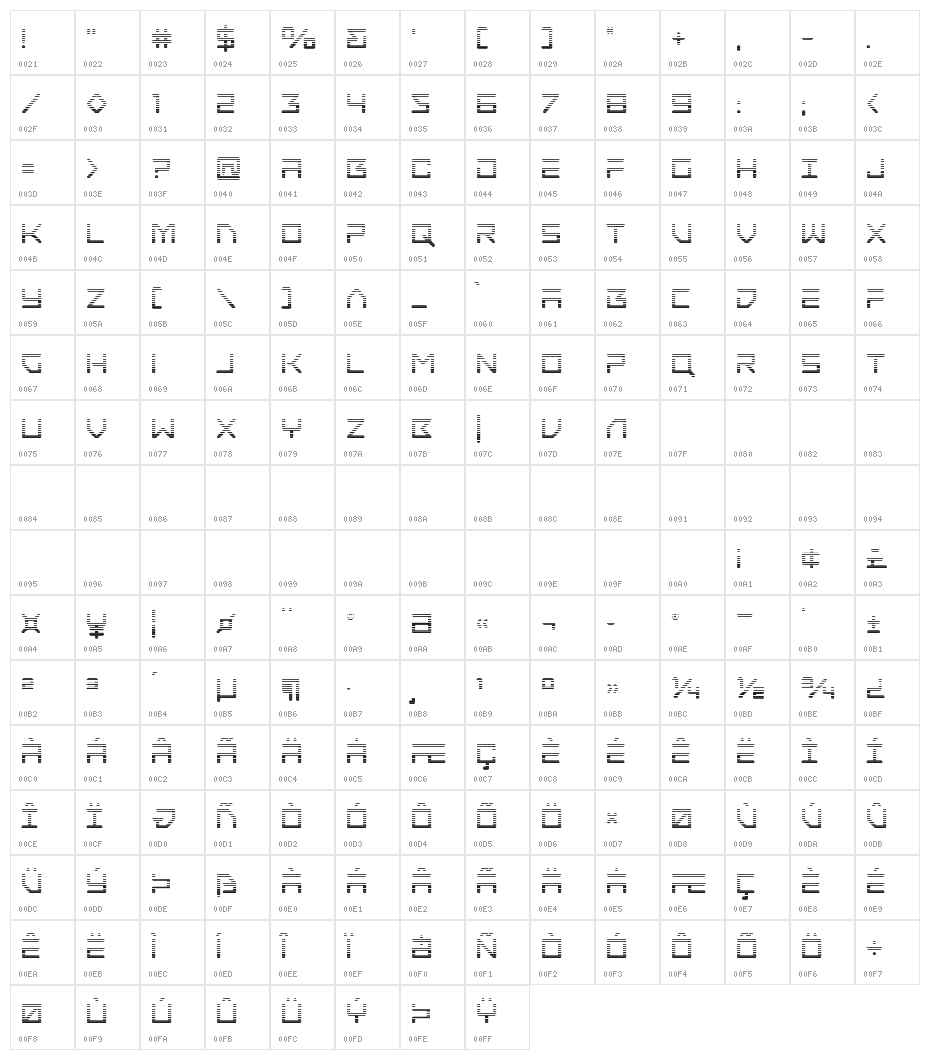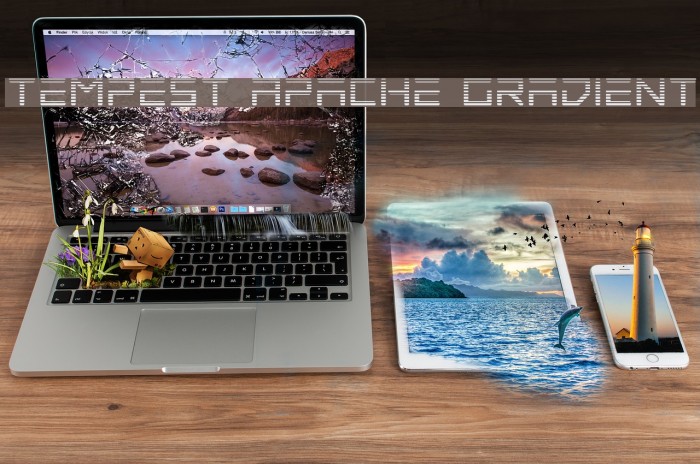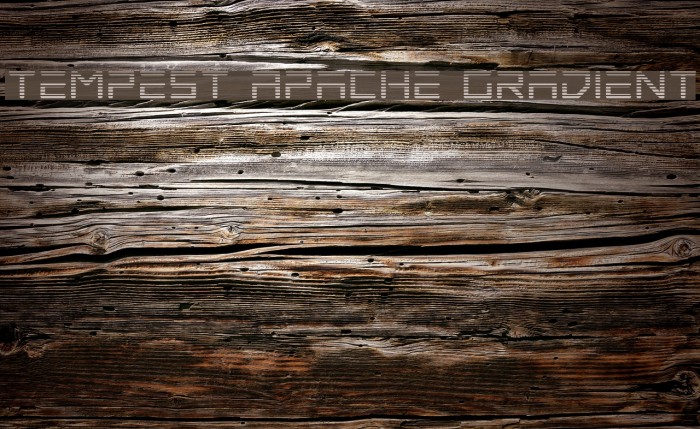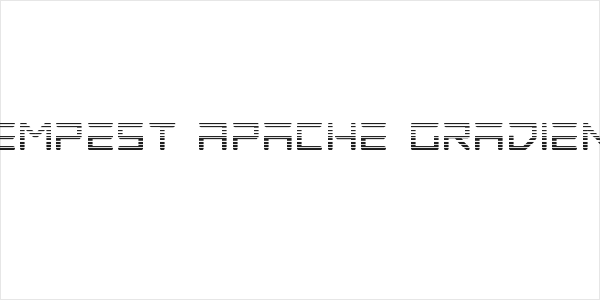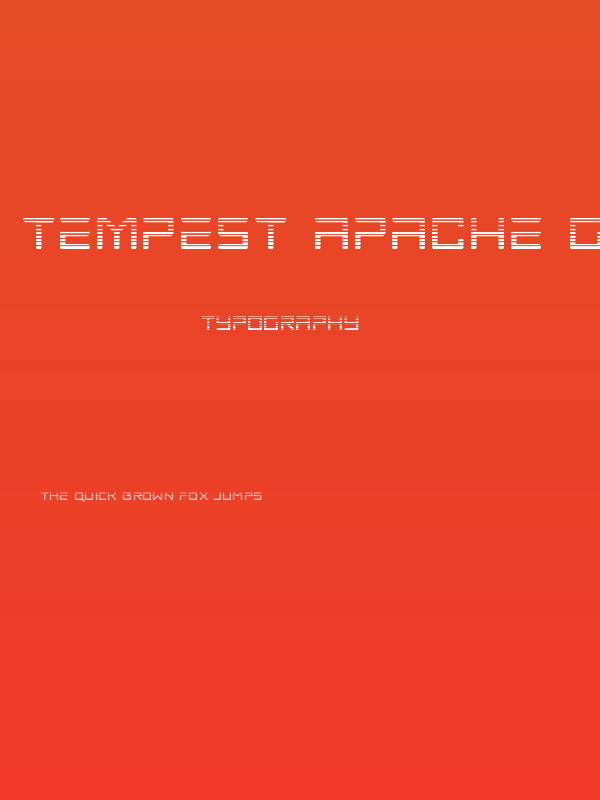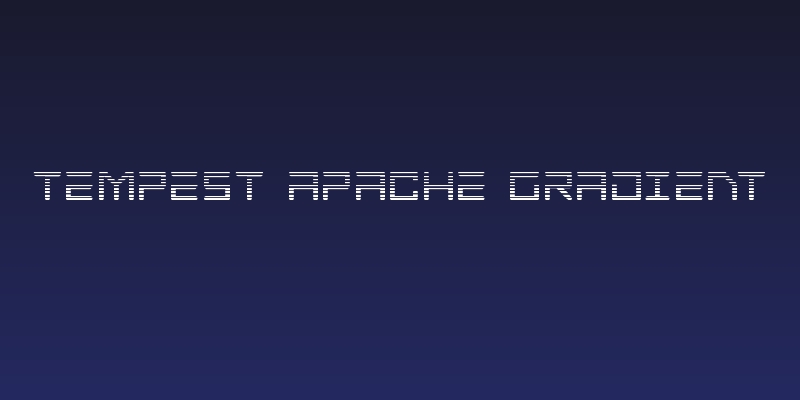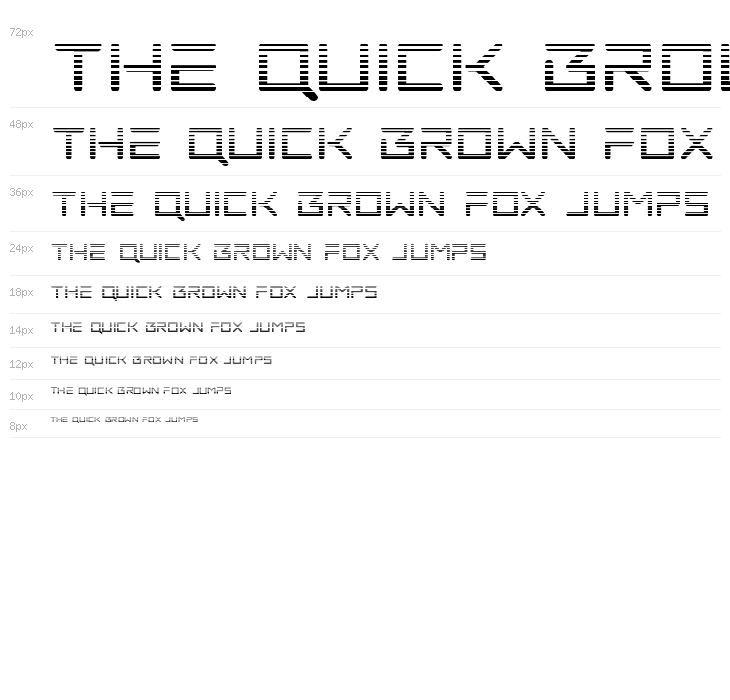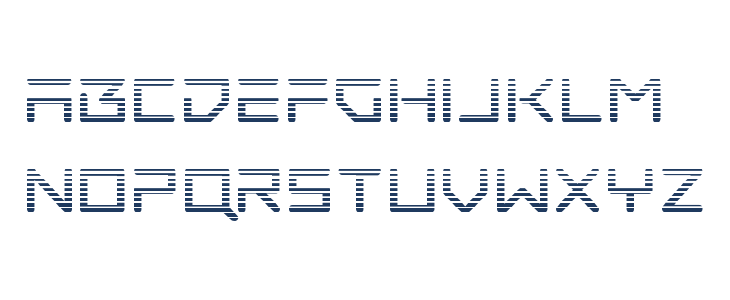
Tempest Apache Gradient Font
Tempest Apache Gradient Description
This font features a distinctive, futuristic design characterized by horizontal lines that create a gradient effect within each character. The geometric shapes and sharp angles give it a modern and digital appearance, reminiscent of early computer graphics or sci-fi themes. The uppercase and lowercase letters maintain a consistent style, with numbers and special characters following the same design principles. The font's unique structure makes it stand out, offering a bold visual impact.
| Proposed Projects | Ideal for tech-related branding, video game titles, sci-fi movie posters, or any project requiring a modern, digital look. |